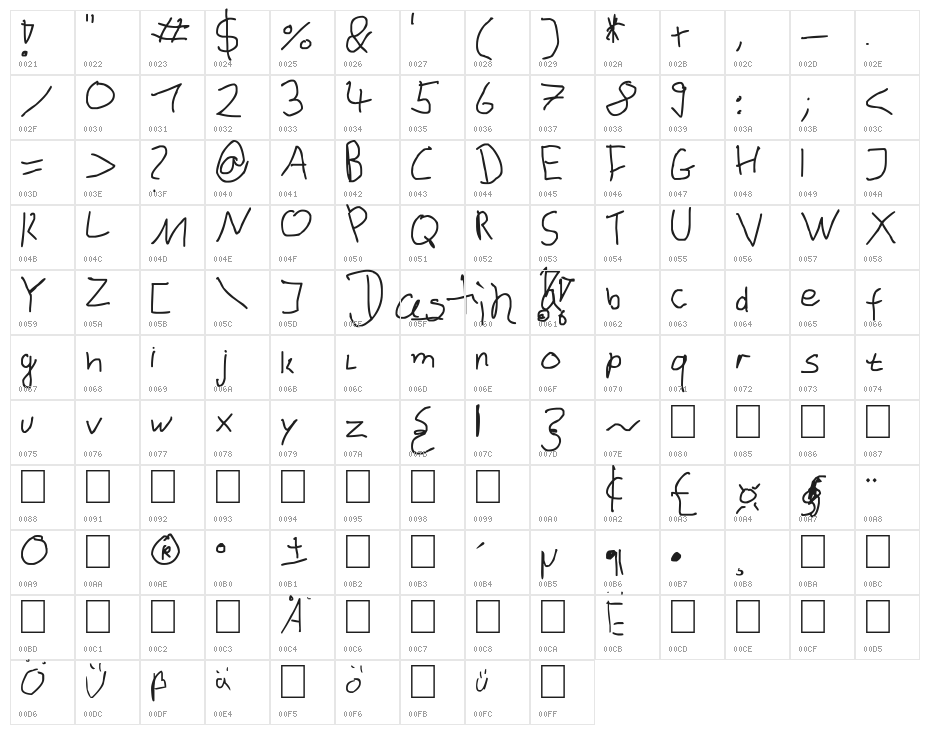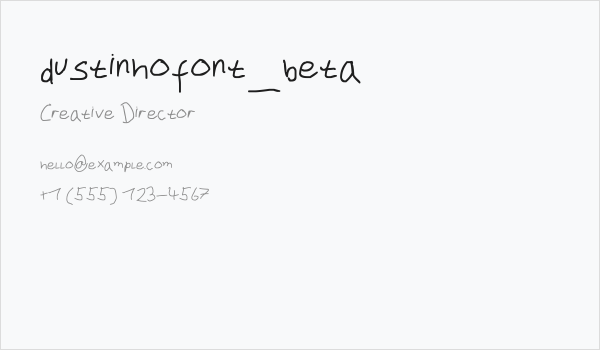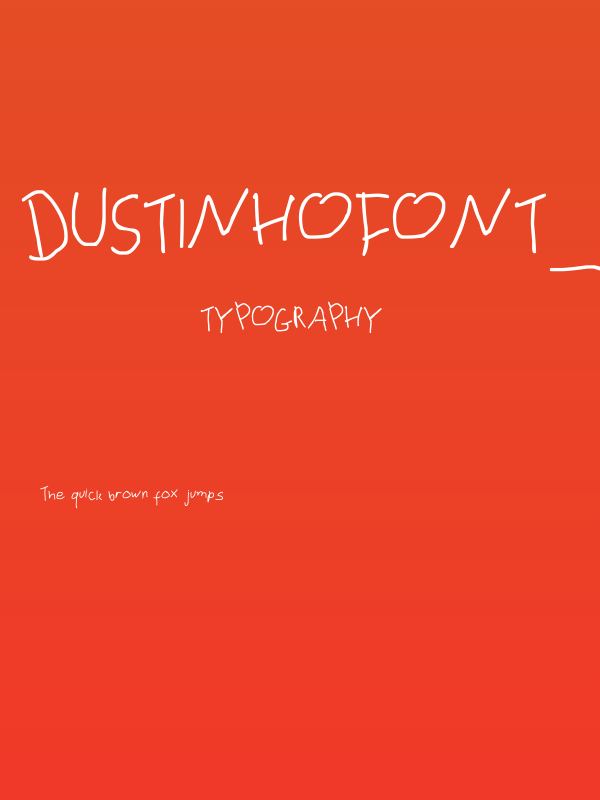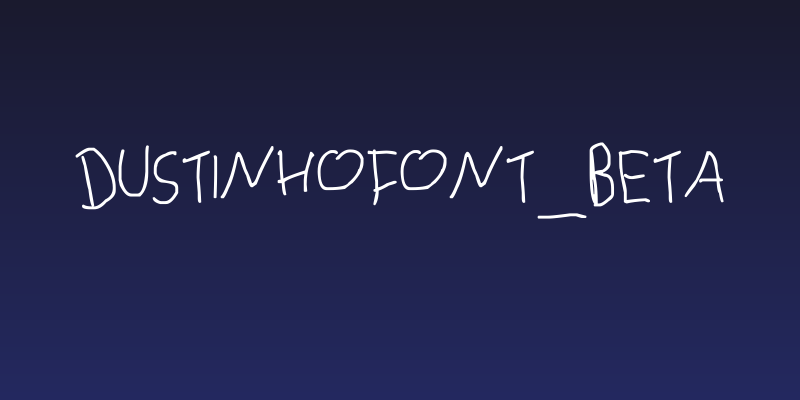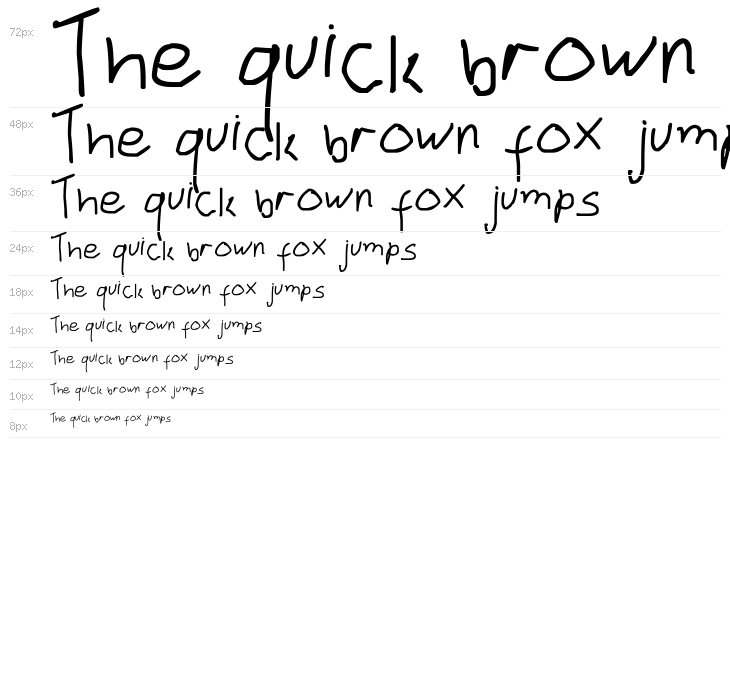
dustinhofont_beta Font
dustinhofont_beta Description
This font exhibits a playful and informal handwritten style, characterized by its irregular and slightly whimsical strokes. The letters have a casual, freeform appearance, with varying line thickness that adds to its charm. The uppercase and lowercase letters maintain a consistent style, with a slight slant that gives a sense of movement and energy. Numbers and special characters follow the same informal aesthetic, making the font suitable for creative and informal projects. The overall design is approachable and friendly, perfect for conveying a relaxed and personal tone.
| Proposed Projects | Ideal for children's books, greeting cards, casual invitations, and creative branding projects. |